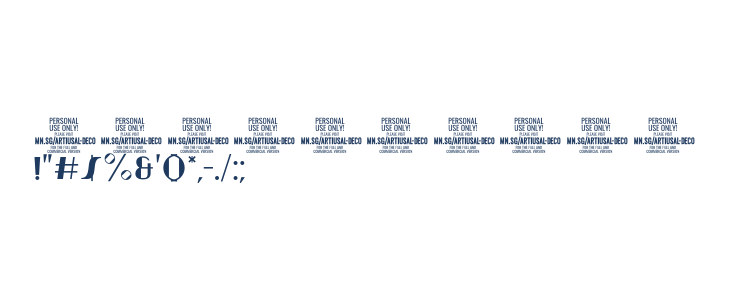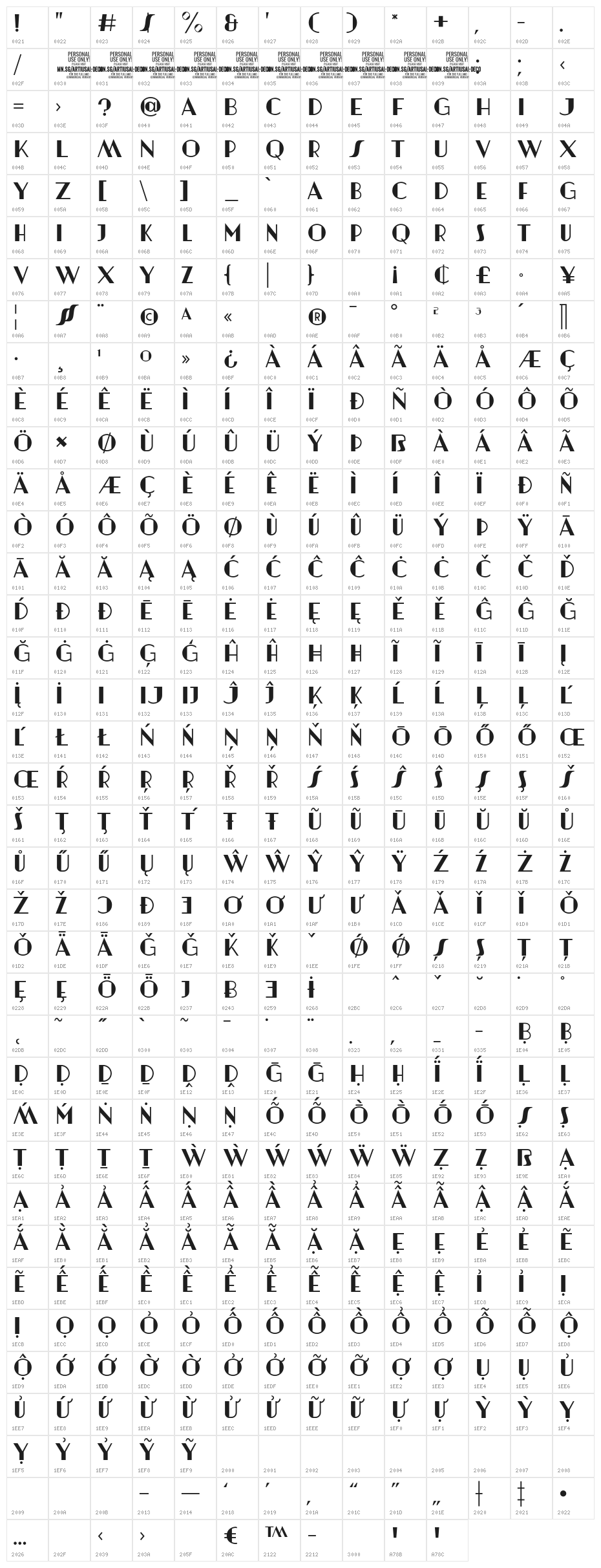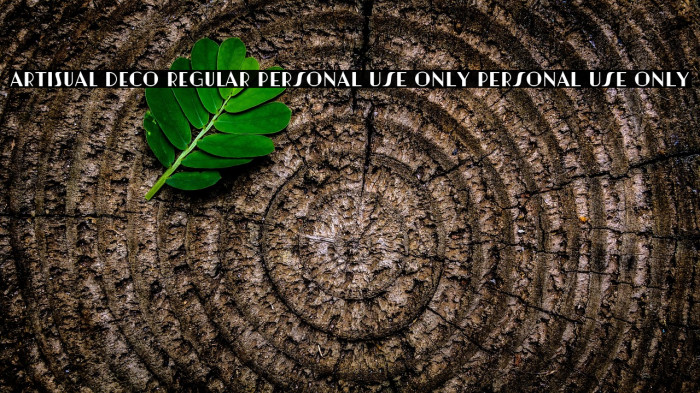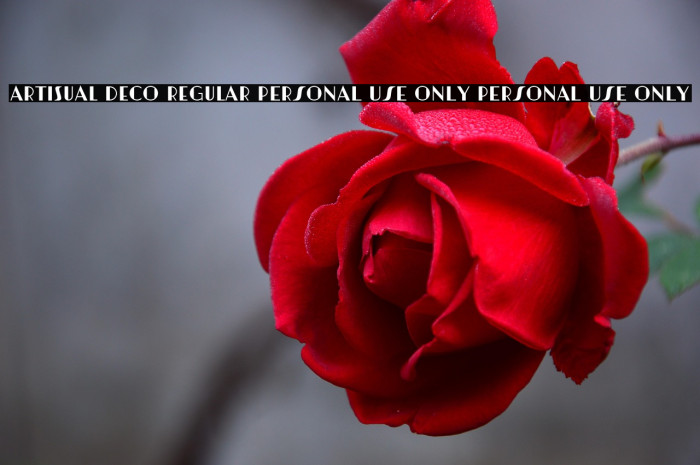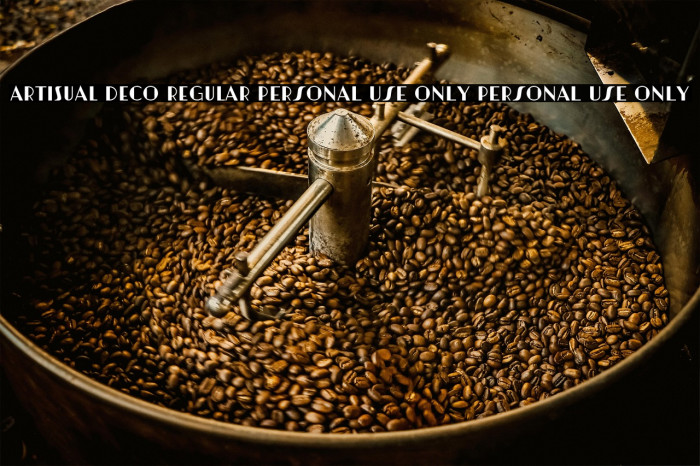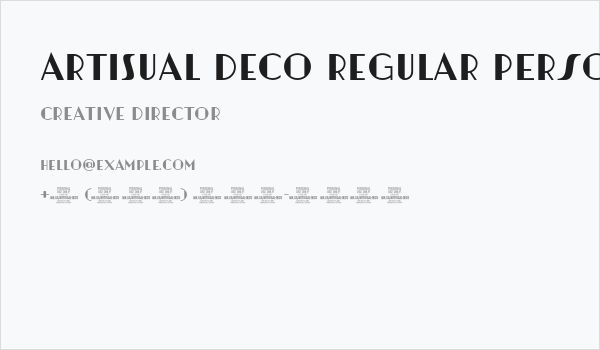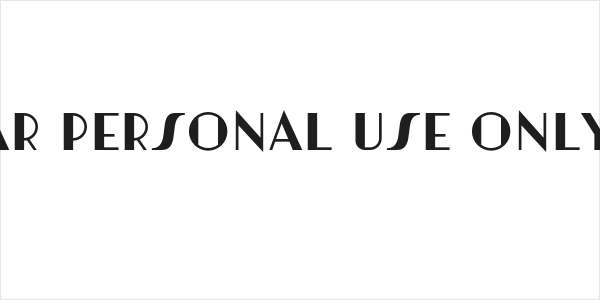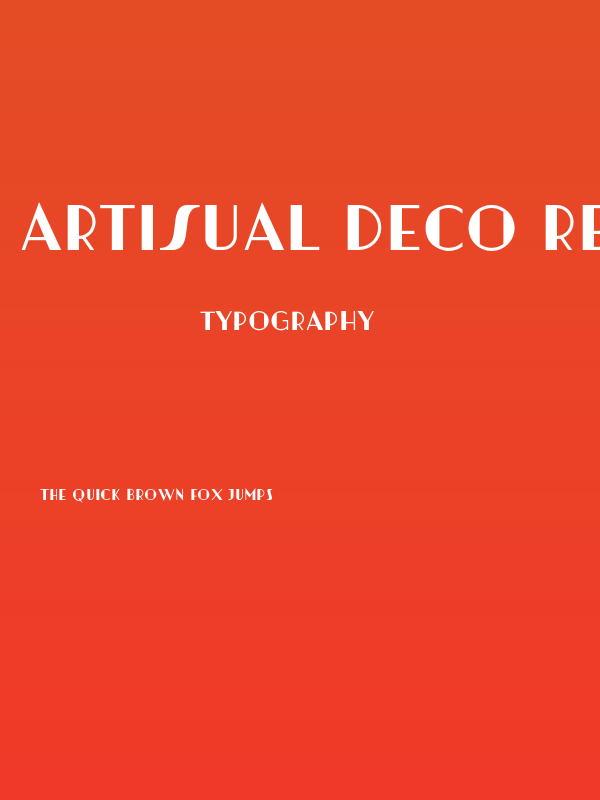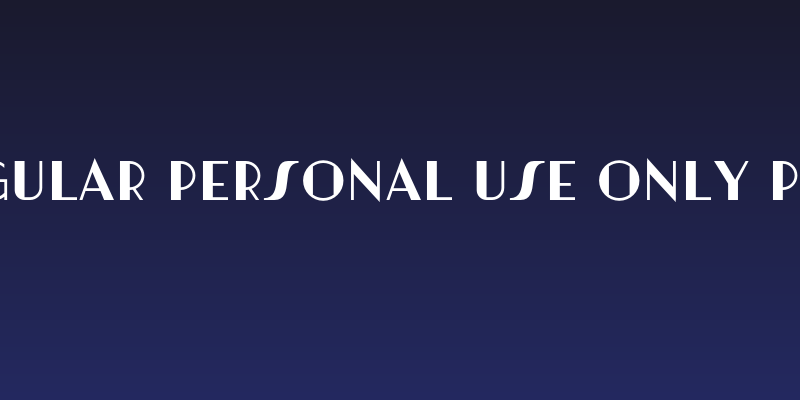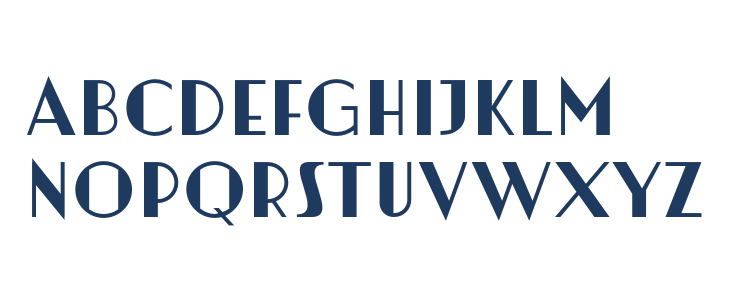
Artisual Deco Regular PERSONAL USE ONLY Font
Artisual Deco Regular PERSONAL USE ONLY Description
This font embodies the elegance and geometric precision of the Art Deco era. It features sharp, angular lines and a bold presence, making it ideal for capturing attention. The uppercase letters are particularly striking, with a mix of straight and diagonal lines that create a sense of movement and sophistication. The lowercase letters maintain this aesthetic, offering a cohesive look across different text cases. The numerals and special characters are designed with the same attention to detail, ensuring consistency throughout. This font is perfect for projects that require a touch of vintage glamour and modern flair.
| Overall Style | Vintage, Modern |
| Proposed Projects | Ideal for branding, posters, invitations, and any design project that seeks to evoke a sense of vintage elegance and modern style. |